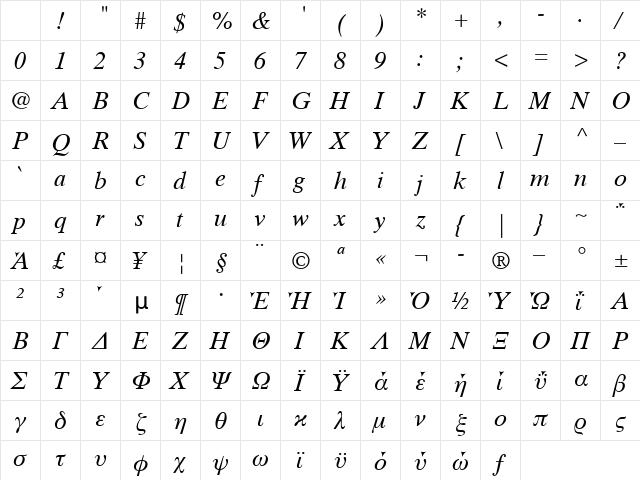
TimesTenGreek Upright is a composed and adaptable typeface that performs quietly and consistently across a wide range of design contexts. The slanted form adds forward momentum and visual energy.